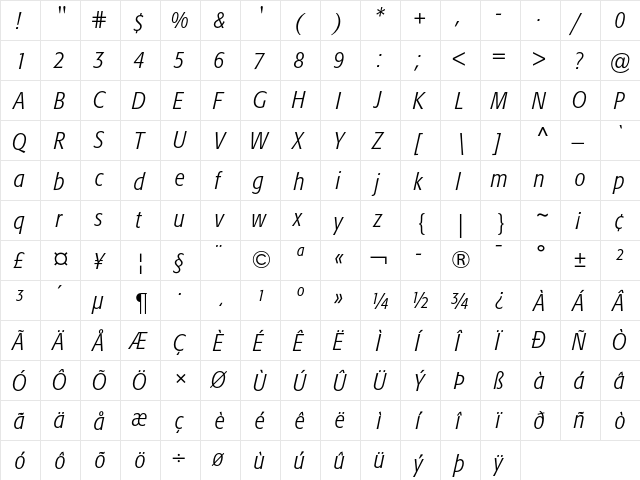
Formata Light Condensed Italic Font Preview
| Style | Light Condensed Italic |
Design Context for Formata Typeface
Formata takes a measured approach to typography — its balanced proportions and neutral character make it a reliable workhorse for both digital and print work. Its italic angle brings a sense of urgency and motion to the letterforms. The delicate stroke weight brings airiness and refinement to layouts. Its narrow stance lets it pack a punch even in space-constrained designs.
Pro Tip: Use Formata for emphasis, pull quotes, and subheadings where its slanted energy can add rhythm to the layout.